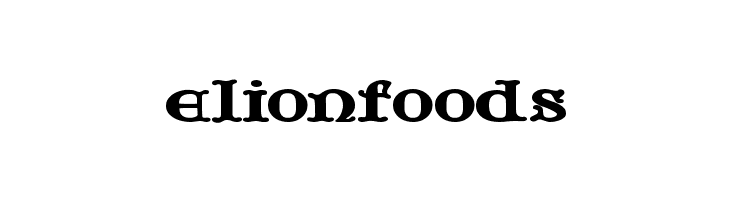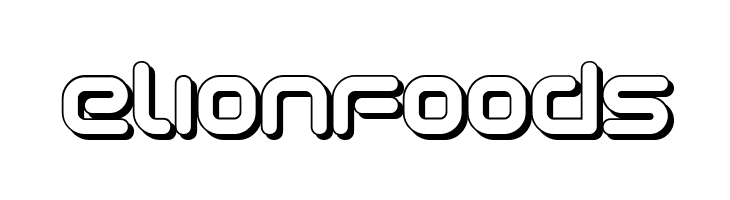
( Fonts by Digital Graphics Labs - www.digitalgraphiclabs.com )
An elegant script font with flowing, cursive characters and intricate flourishes.
( Fonts by AEnigma - www.aenigmafonts.com )
A bold, decorative font with a three-dimensional outline effect.
( Fonts by www.kiwi-media.com )
A bold, abstract font with playful, blob-like characters.
A modern, geometric font with clean lines and a futuristic aesthetic.
( Fonts by Kevin Christopher - www.kcfonts.com )
Bold, shadowed font with a modern, three-dimensional look.
( Fonts by Jester Font Studio )
A bold, decorative font with vintage flair and unique serifs.
A futuristic, bold, and rounded font with a three-dimensional outline.